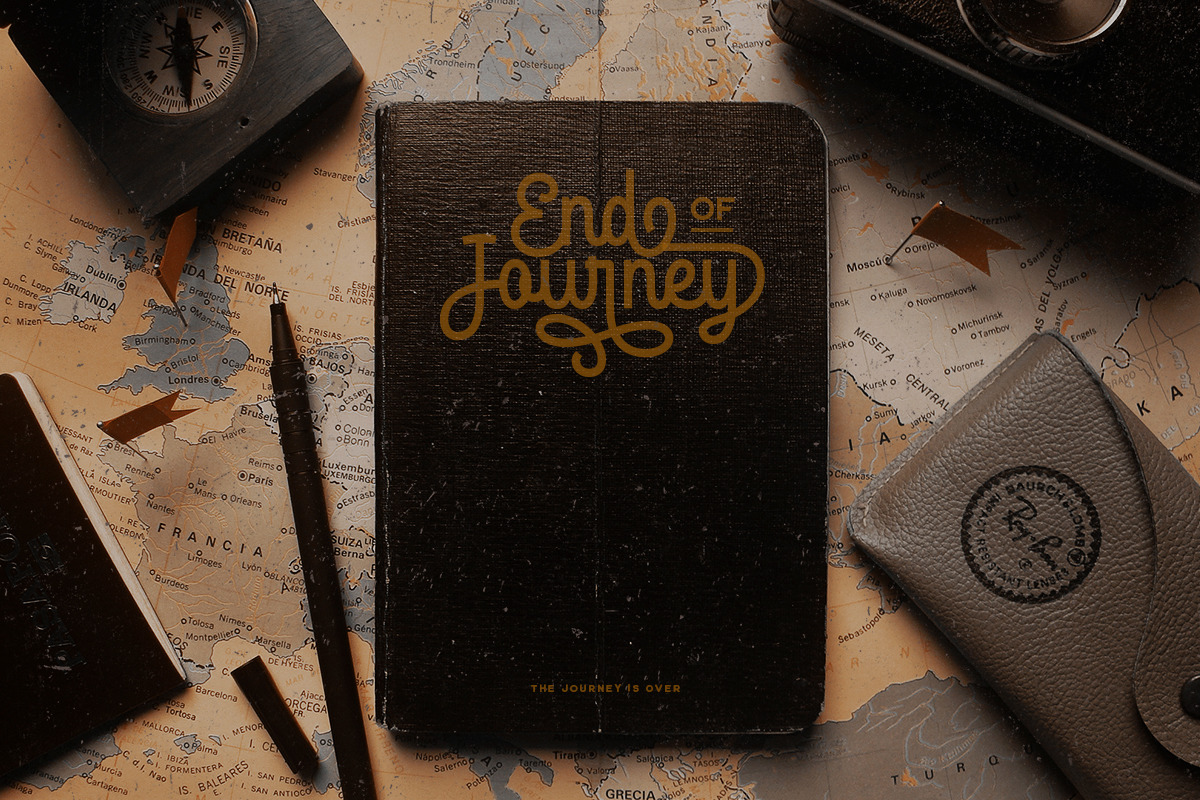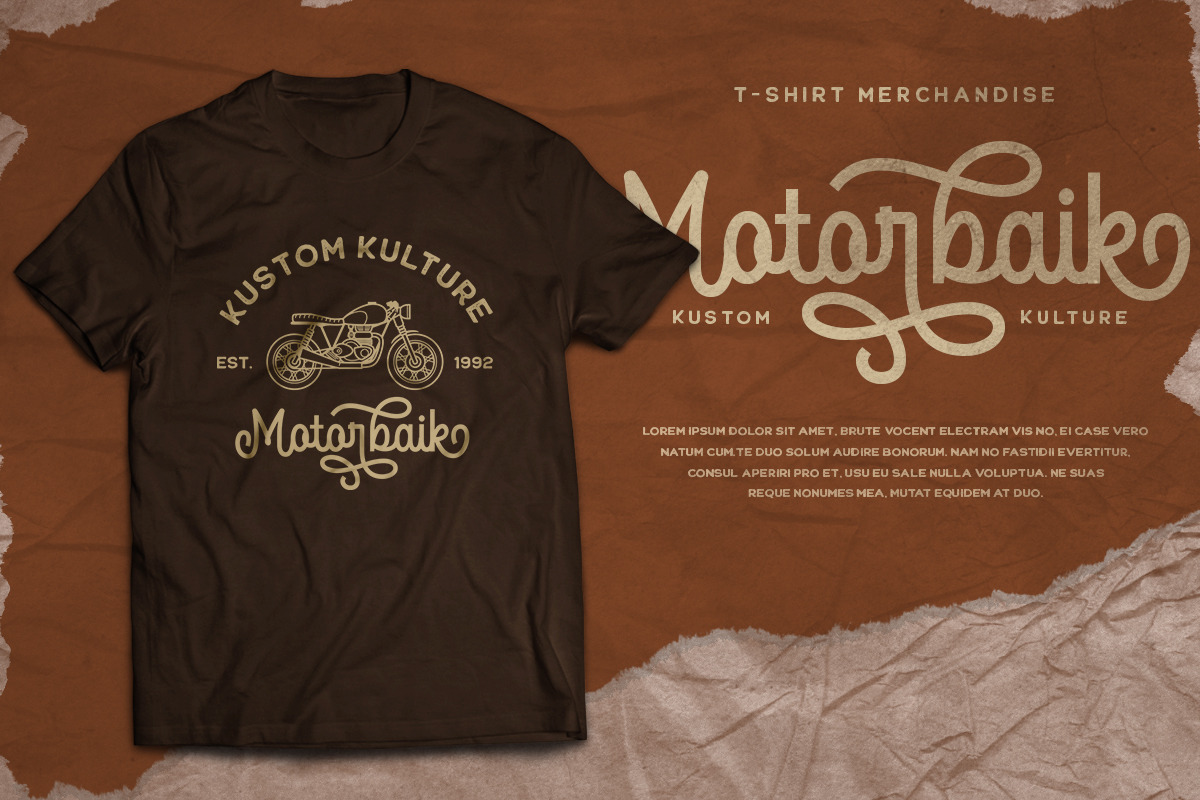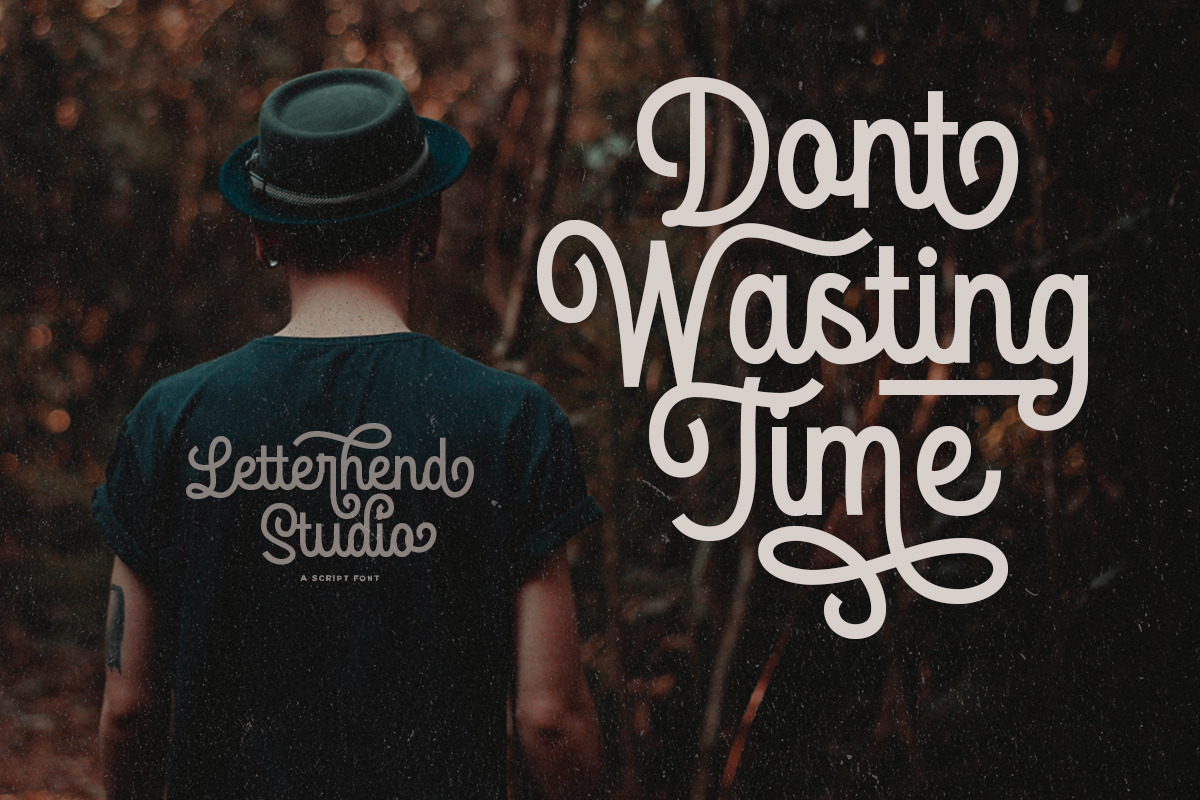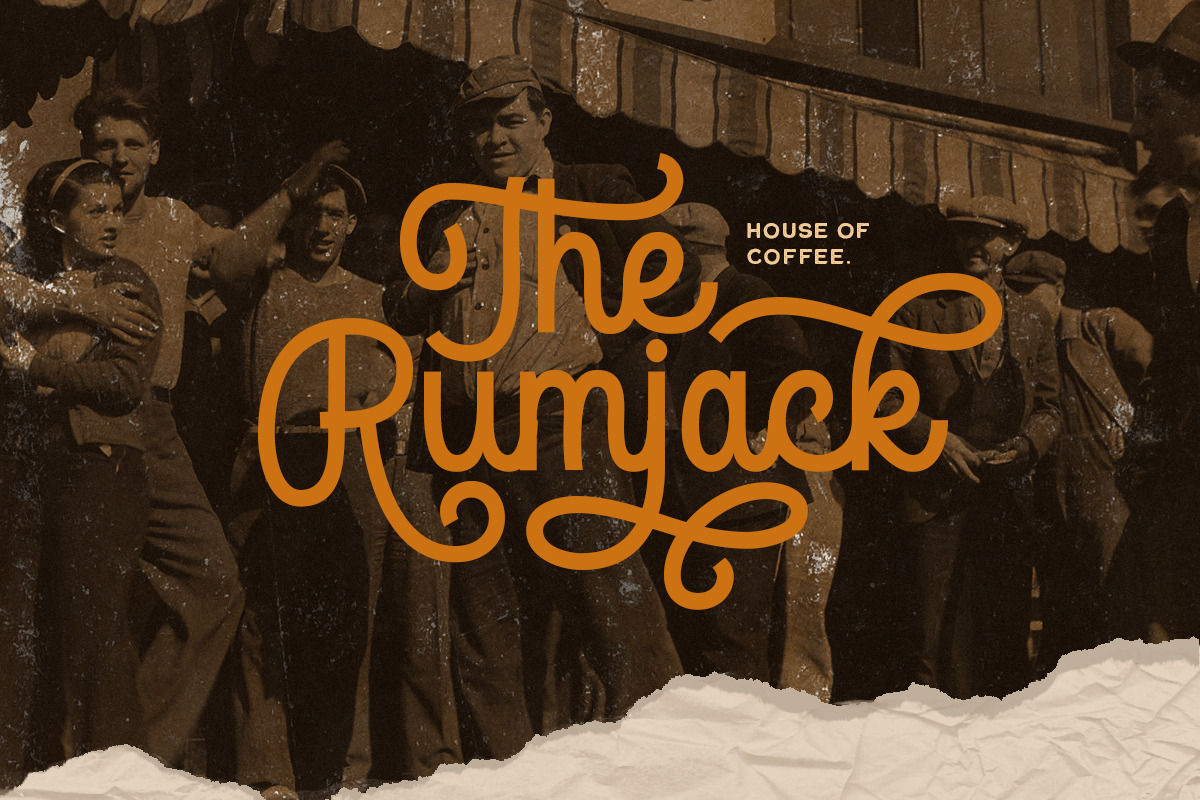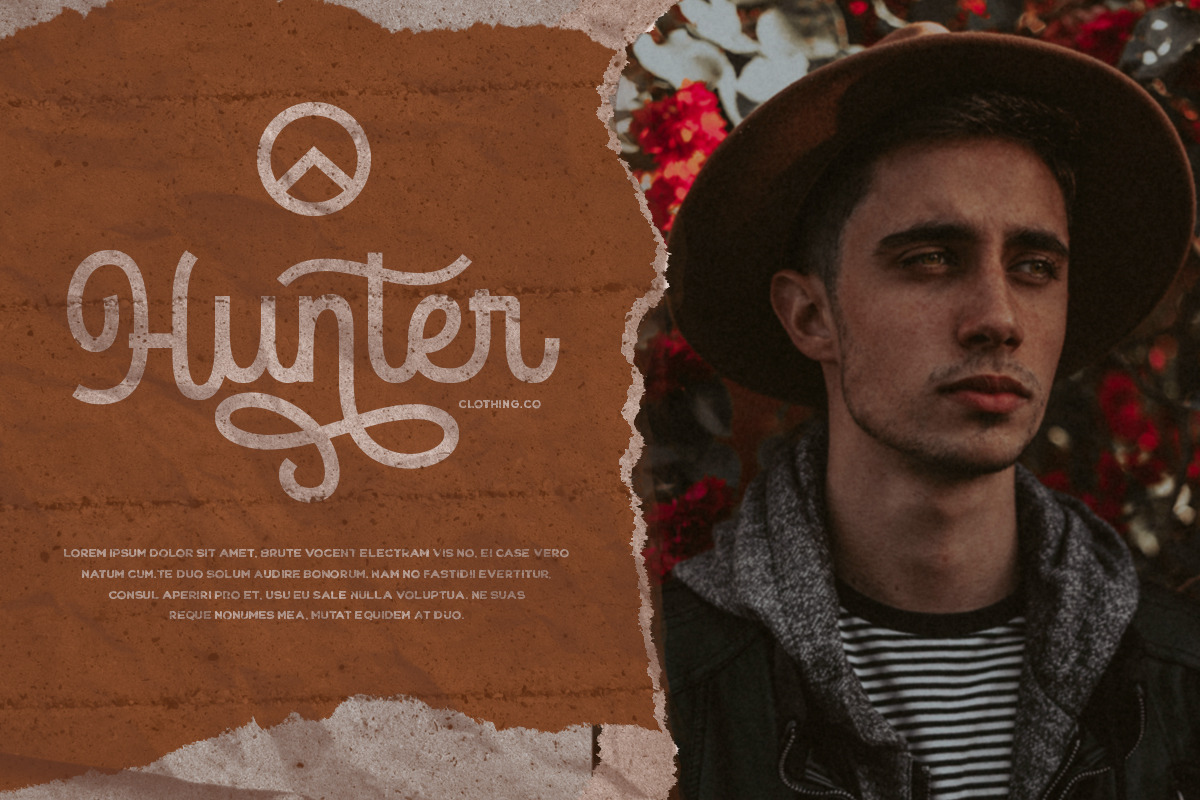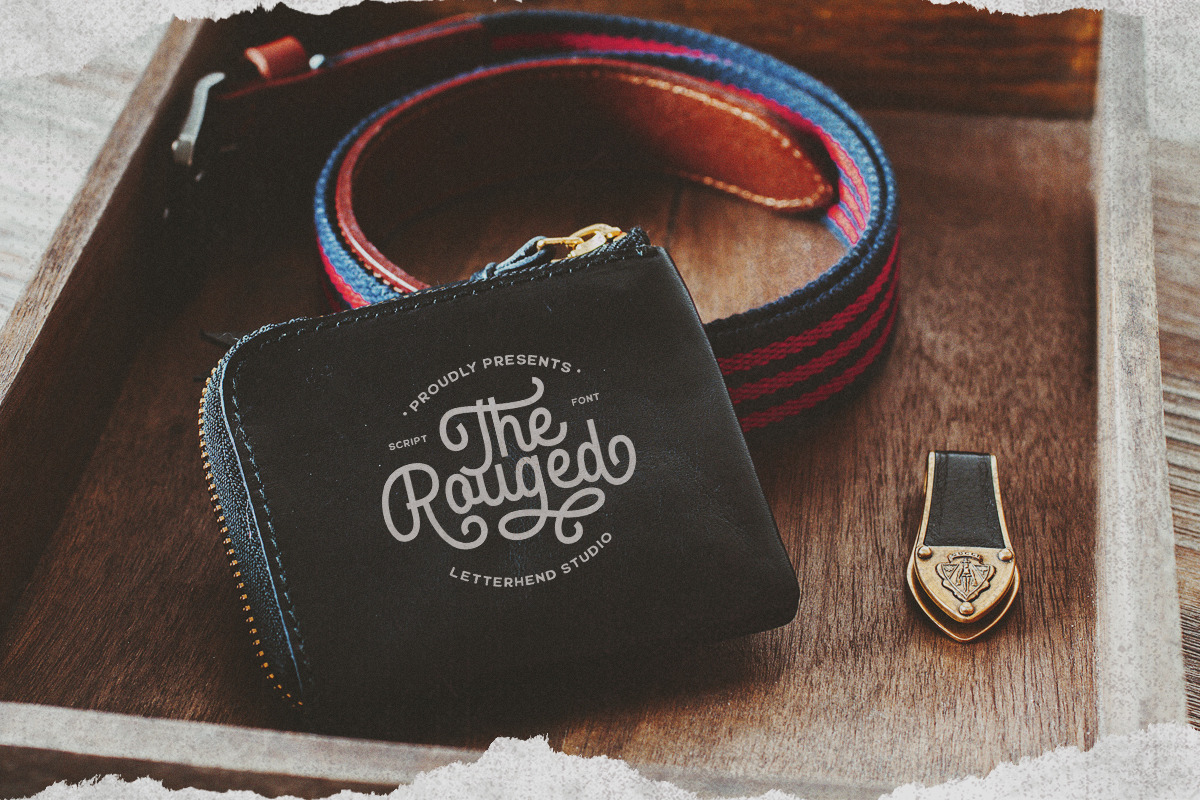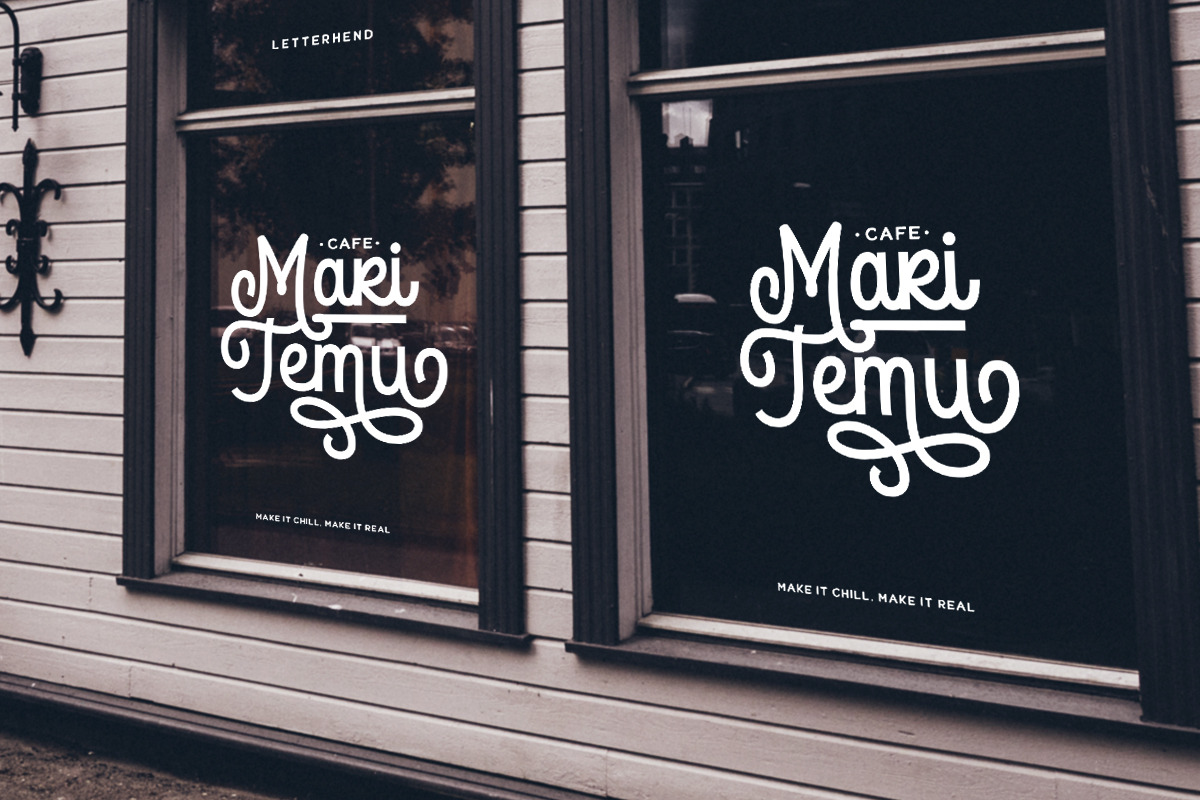
The Rouged - Display Script Font
Introducing, The Rouged, A Display Script. This typeface has bold monoline which make it looks stand out, and the unique swashes make you easy to create a nice logotype or cool lettering.
This font perfectly made to be applied especially in logo, and the other various formal forms such as invitations, labels, logos, magazines, books, greeting / wedding cards, packaging, fashion, make up, stationery, novels, labels or any type of advertising purpose.